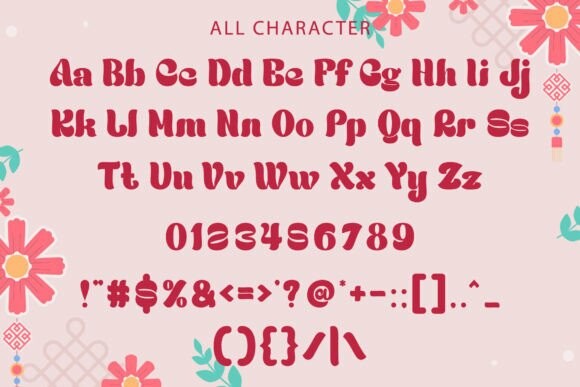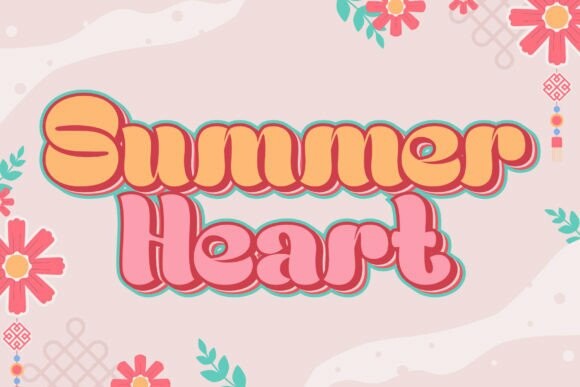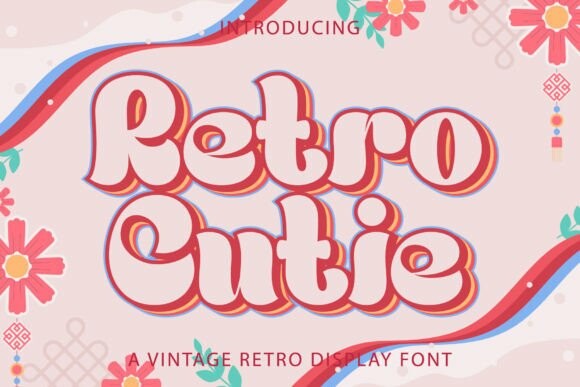
Retro Cutie Font
Retro Cutie Font is a cool, vintage-style handwritten display font. Use it to add that special retro touch to any design idea! It can be used for logos, branding, invitations, stationery, wedding designs, social media posts, and much more!